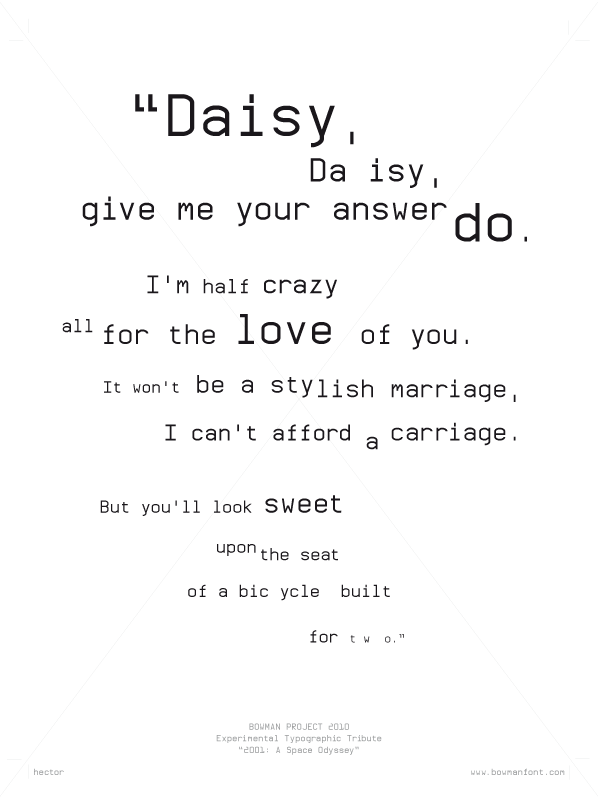
Preview and download Bowman Font. Created by Hector Carrillo Aspano in Basic Fixed width styles with 100% Free license.
Font name: | Bowman |
Categories | Basic, Fixed width |
Author: | Hector Carrillo Aspano |
Bowman Project 2010. Experimental Typographic Tribute "2001: A Space Odyssey". More information: http://www.bowmanfont.com |